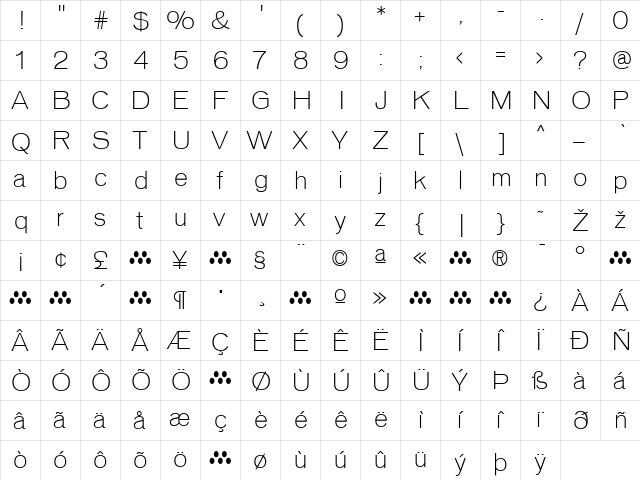
Vonnes Regular
| Foundry | \(c\) The Font Bureau, Inc |
Design Context for Vonnes Typeface
Vonnes is a composed and adaptable typeface that performs quietly and consistently across a wide range of design contexts.